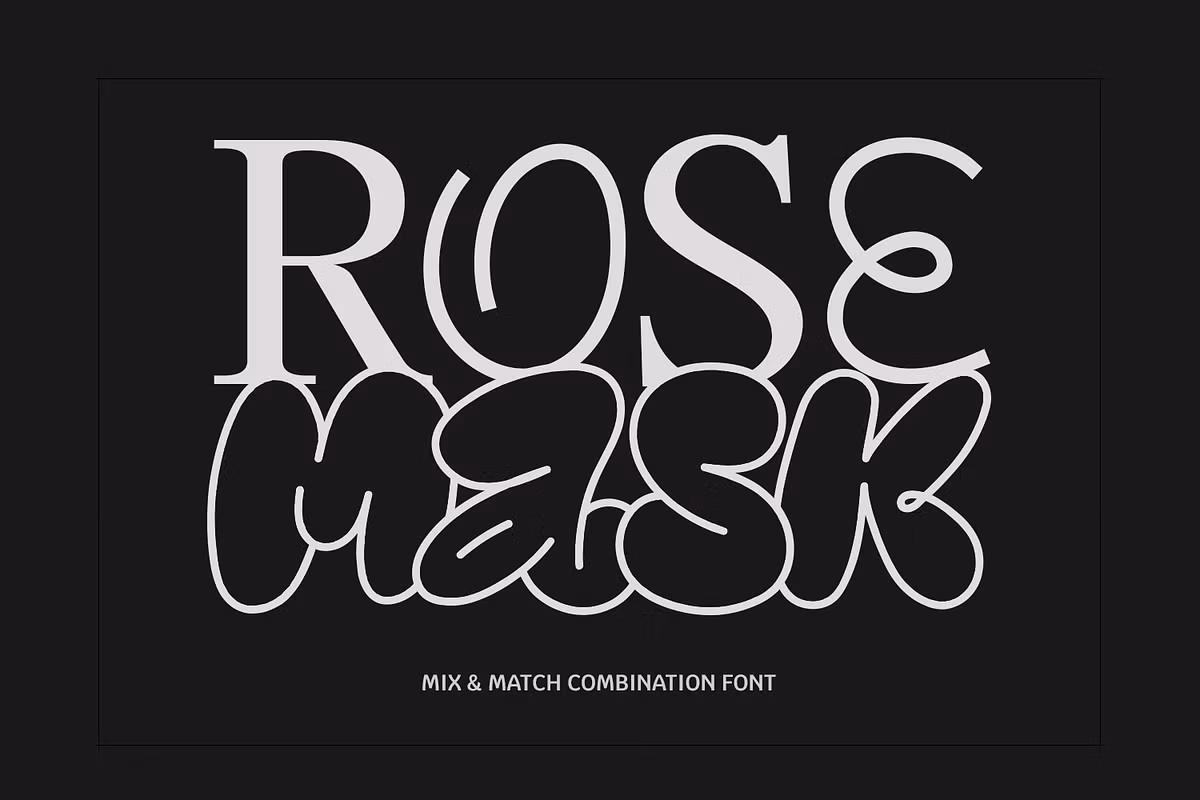
RoseMask - 3in1 Combination Font Free Download
RoseMask - 3in1 Combination Font Free Download is a versatile and dynamic font package that includes three distinct styles in one. Whether you need a script, serif, or display font, RoseMask provides a perfect combination for creative projects. The flexibility to mix and match these styles allows for bold and unique designs, making it ideal for branding, logos, invitations, posters, and more.
With its clean, elegant strokes and complementary designs, RoseMask - 3in1 Combination Font Free Download is perfect for modern projects that need contrast, creativity, and adaptability in one complete package.